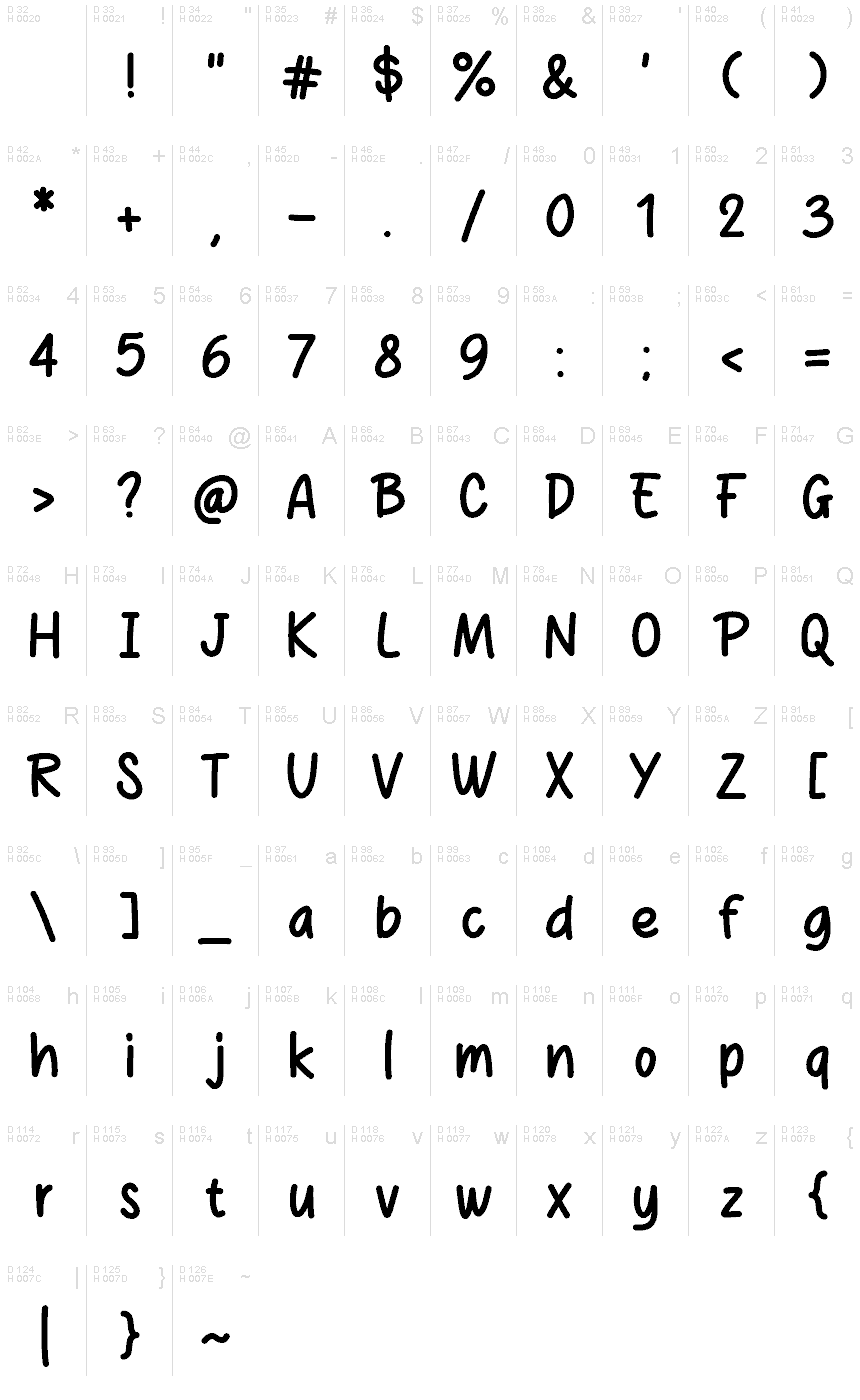
Honey Money
Honey Money font by Aji Waluyo is a free handwritten font that encapsulates an informal, casual, and approachable feel. Its modern aesthetic makes it versatile for various applications while maintaining a unique touch that enhances any project.
Use Honey Money for designing posters, banners, social media posts, motivational quotes, greeting cards, invitations, website headers, stationery items, and business cards. It also suits magazines covers and packaging projects.